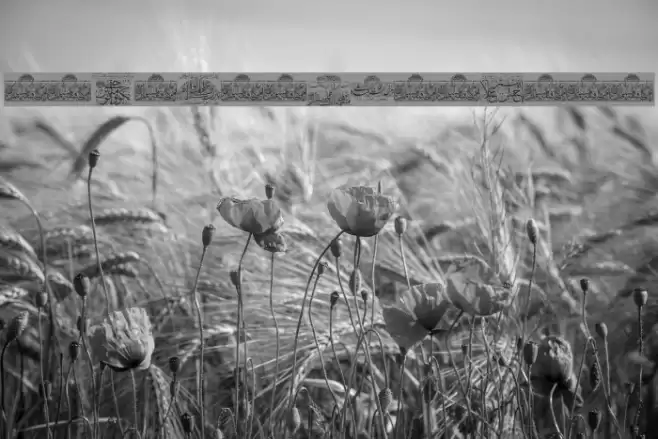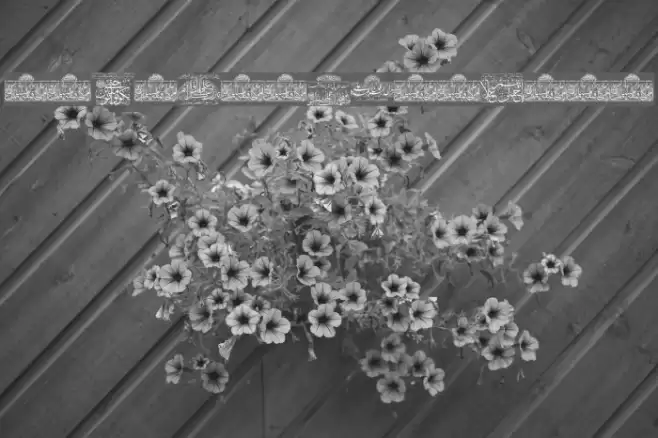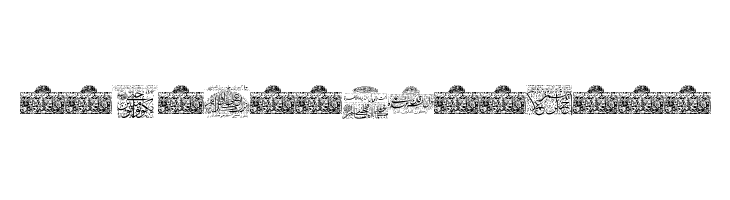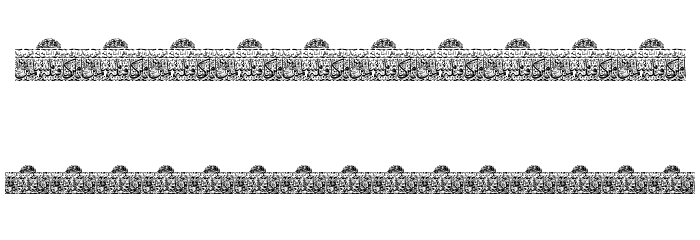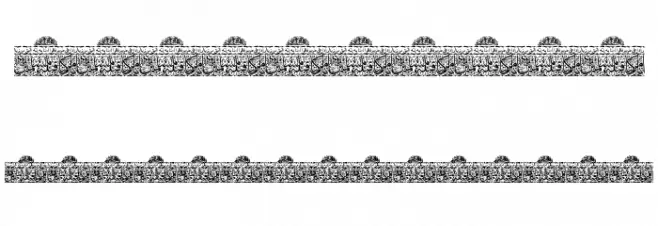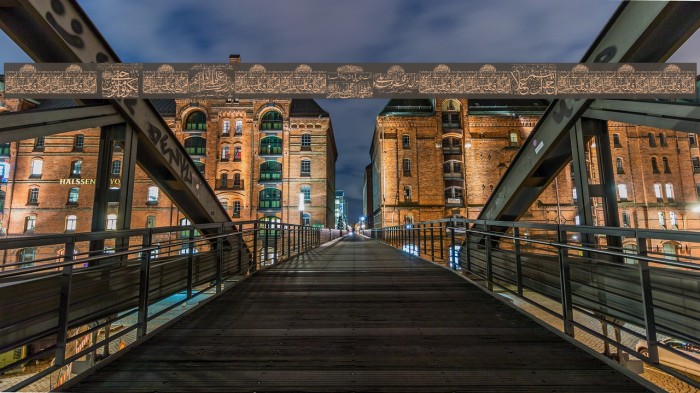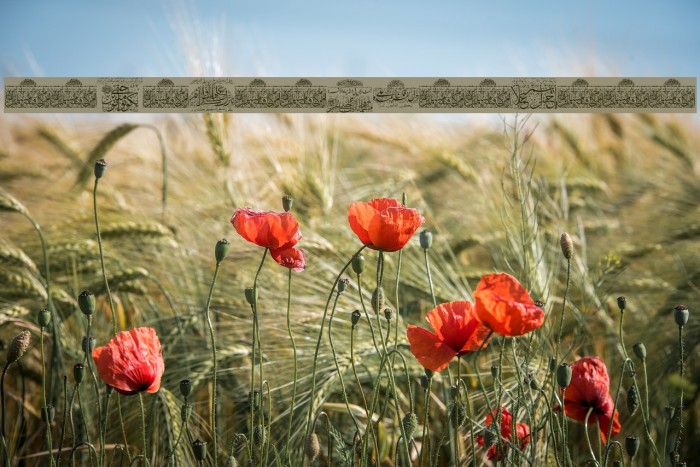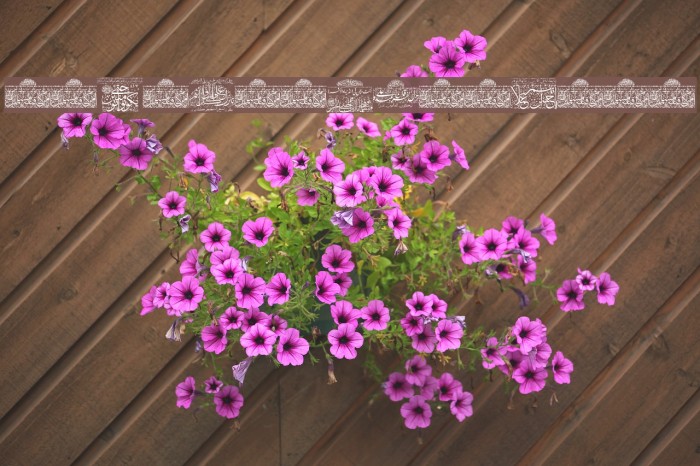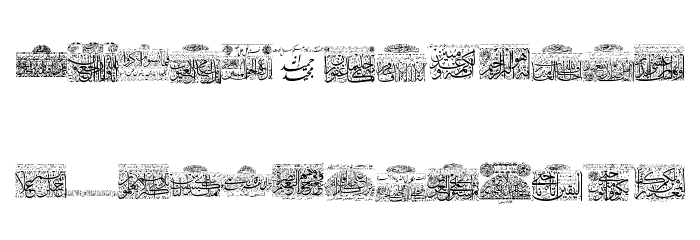
Aayat Quraan 24 Font
Aayat Quraan 24 Description
This image features ornate Arabic calligraphy with decorative borders, commonly used for religious or ceremonial purposes. The script is highly stylized, with intricate flourishes and embellishments, and is not a standard Latin font.
Ornate Arabic calligraphic script with decorative borders from Uncategorized fonts.
- Proposed Projects: Religious manuscripts, ceremonial documents, decorative art, Quranic verses, Islamic architecture.
- Overall Style: Decorative, Traditional, Religious
- Use Case: Religious texts, Decorative panels, Artworks